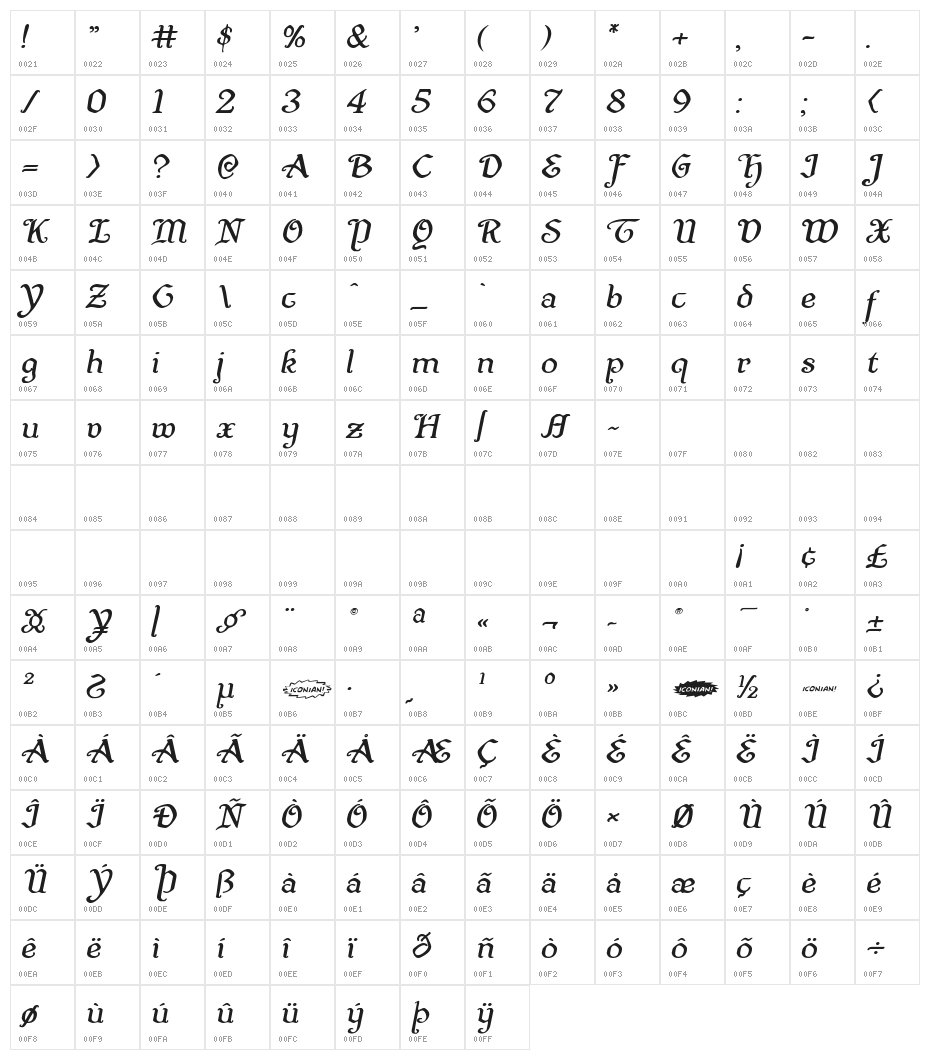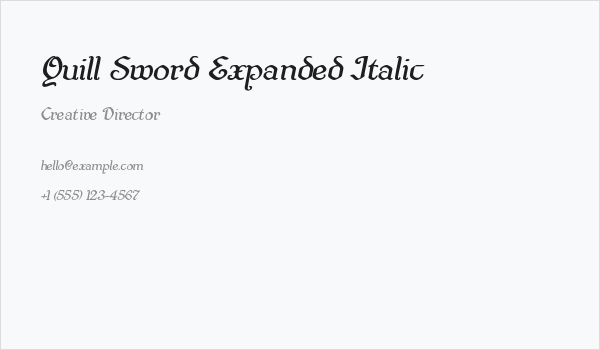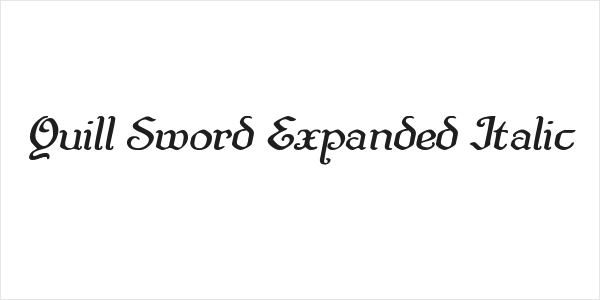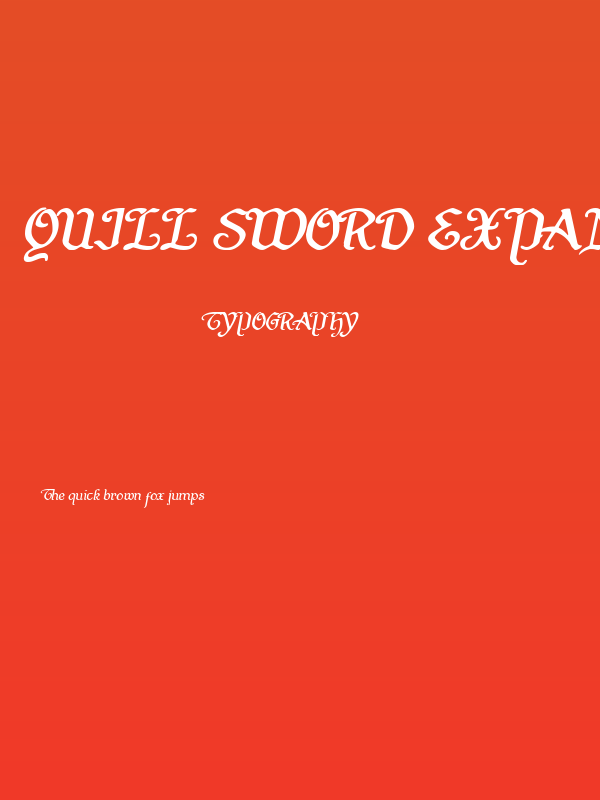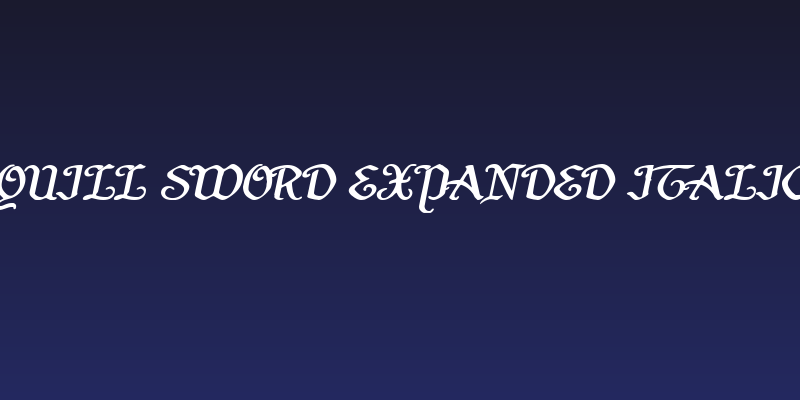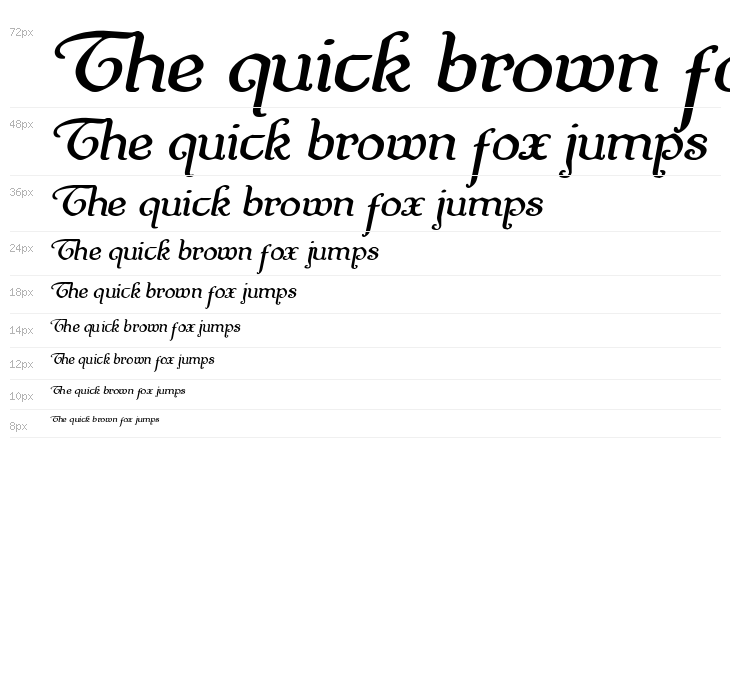
Quill Sword Expanded Italic Font
Quill Sword Expanded Italic Description
This font features an elegant and flowing design with a calligraphic influence, characterized by its expanded and italicized style. The letters have a distinct flair, with exaggerated curves and swashes that give it a dynamic and artistic appearance. The uppercase letters are bold and commanding, while the lowercase letters maintain a consistent flow, enhancing readability. Numbers are styled to match the overall aesthetic, with a slight slant that complements the italic nature. Special characters are thoughtfully integrated, maintaining the font's cohesive look. This font is perfect for projects that require a touch of sophistication and creativity.